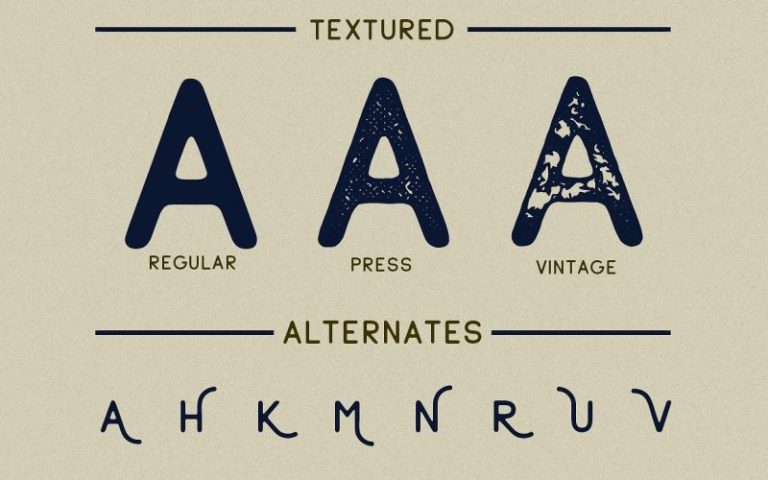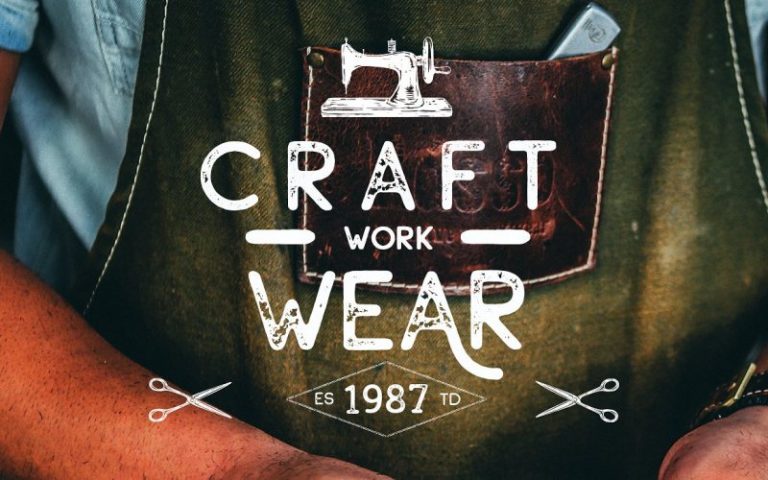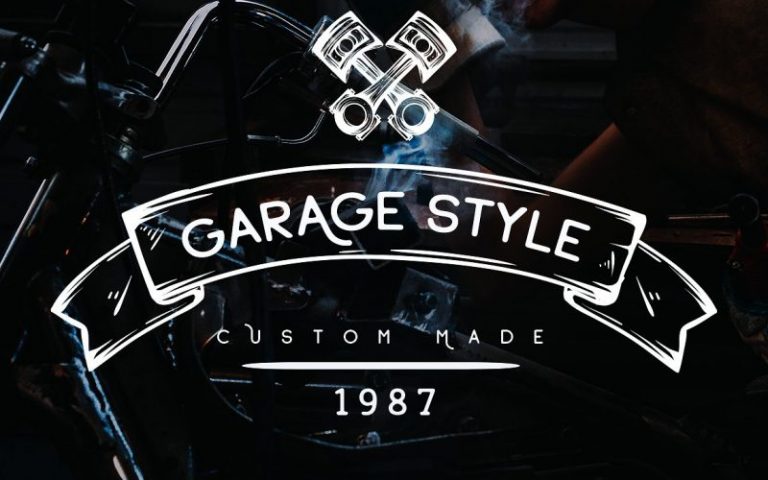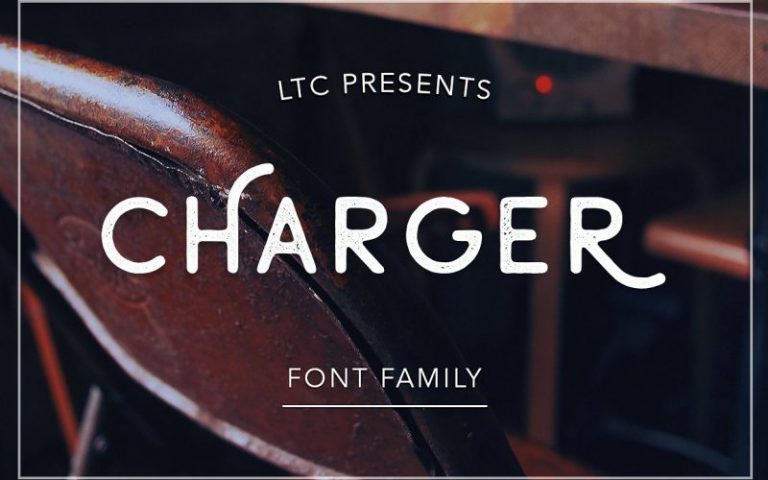
Charger Typeface
A powerful and beautiful condensed sans serif display typeface. It brings charming curves and satisfying patterns to traditional condensed fonts. It is ideal for creating T-shirts, jackets, sweatshirts, signage, business cards, branding, etc. Despite the fact that the sans-serif font, which looks smoother and more flexible, gives you more options when creating your project.